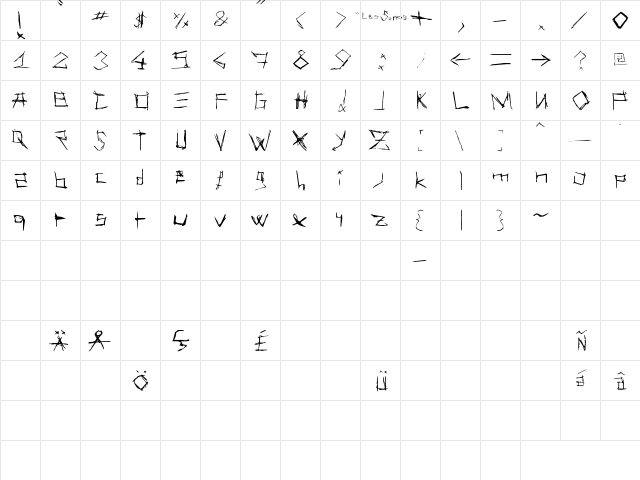
Les Suppos by ChazyChaz Regular
Design Context for Les Suppos by ChazyChaz Typeface
Les Suppos by ChazyChaz is a composed and adaptable typeface that performs quietly and consistently across a wide range of design contexts.